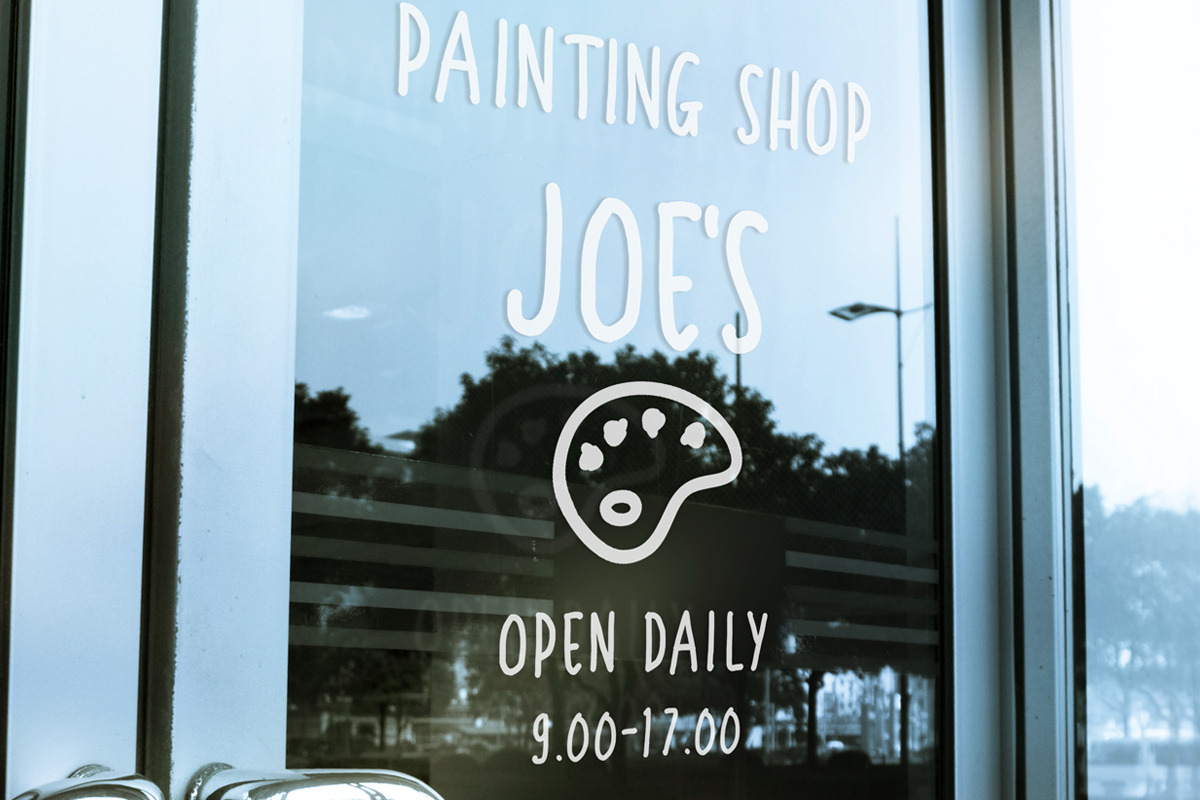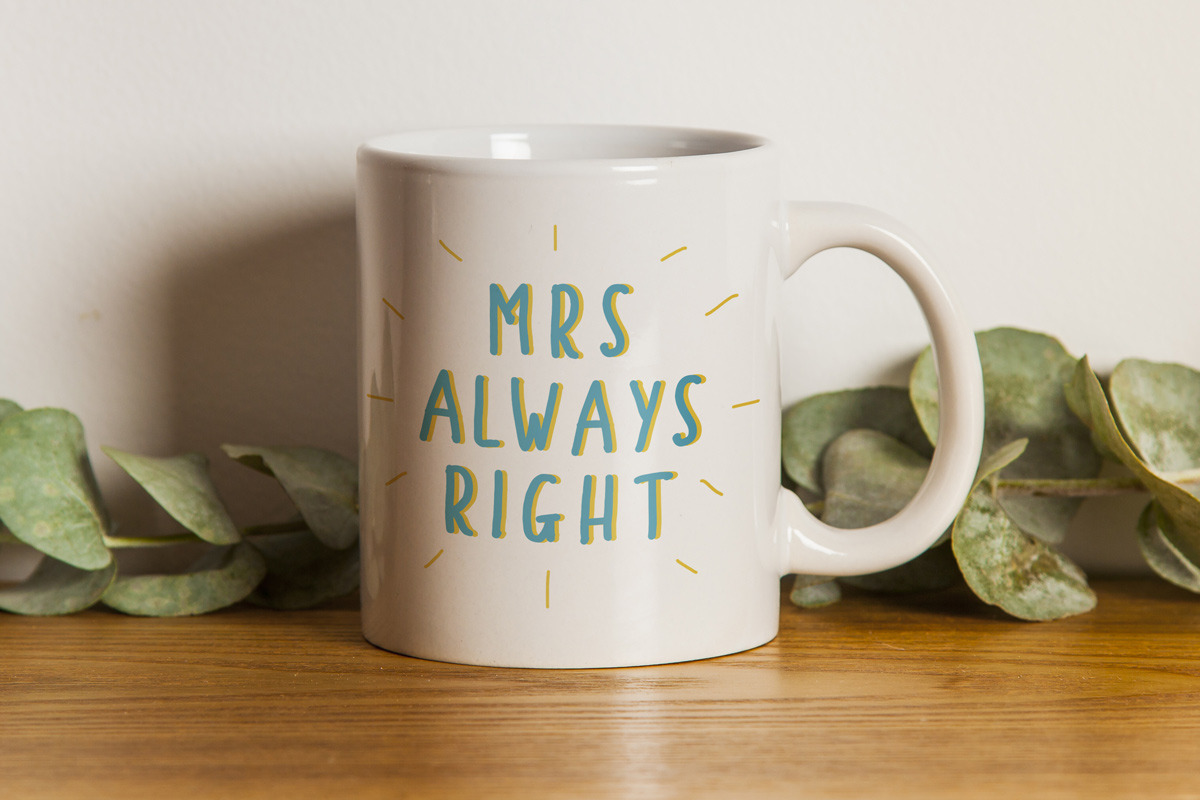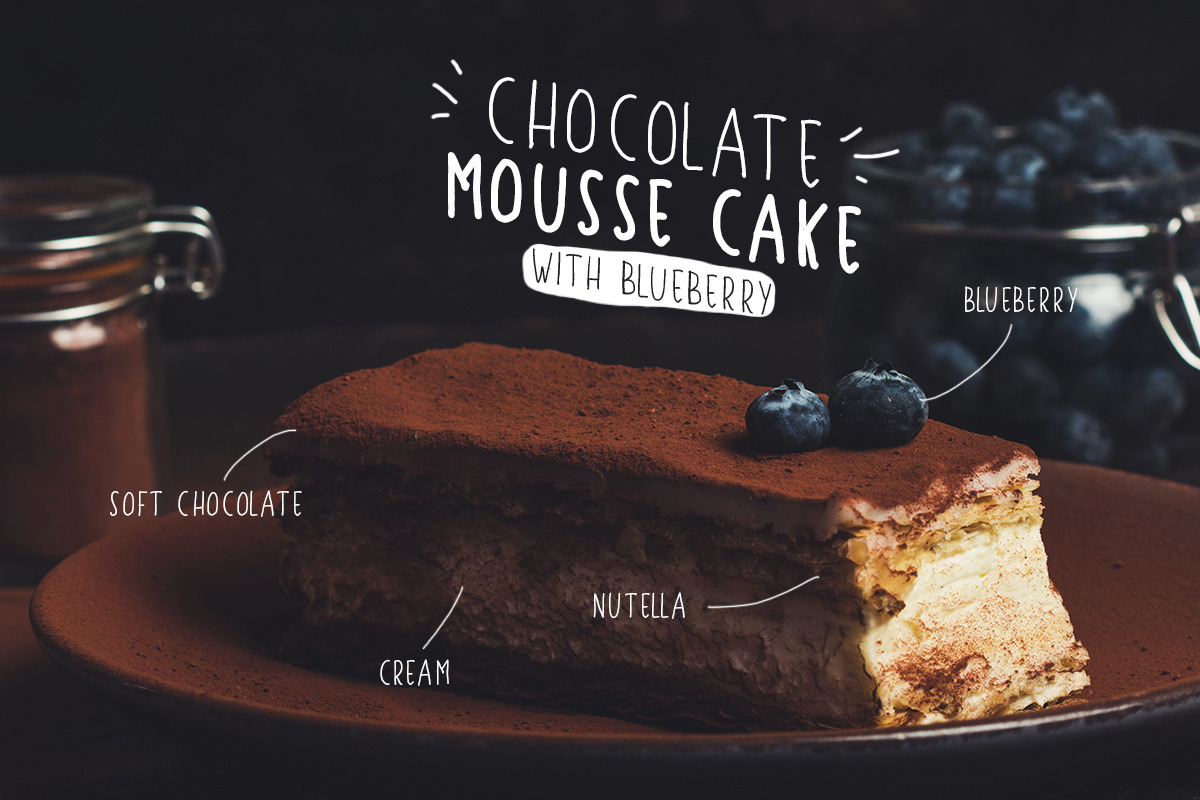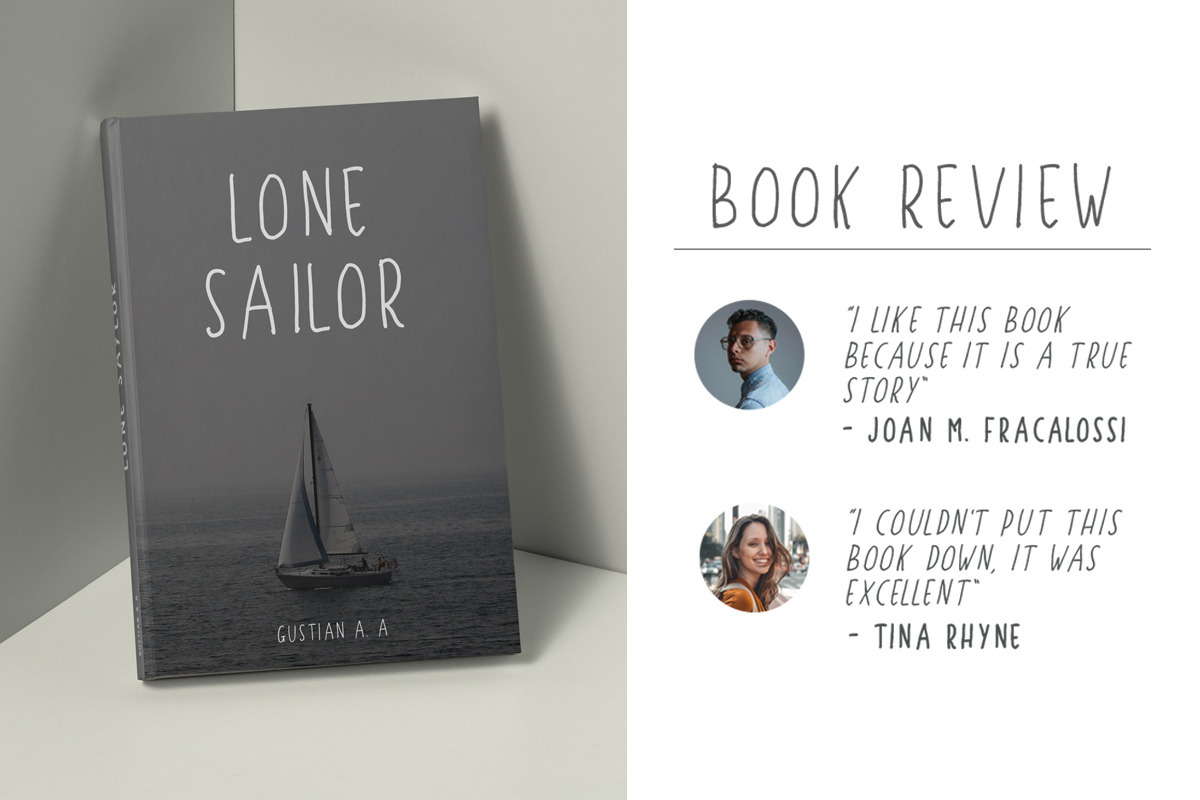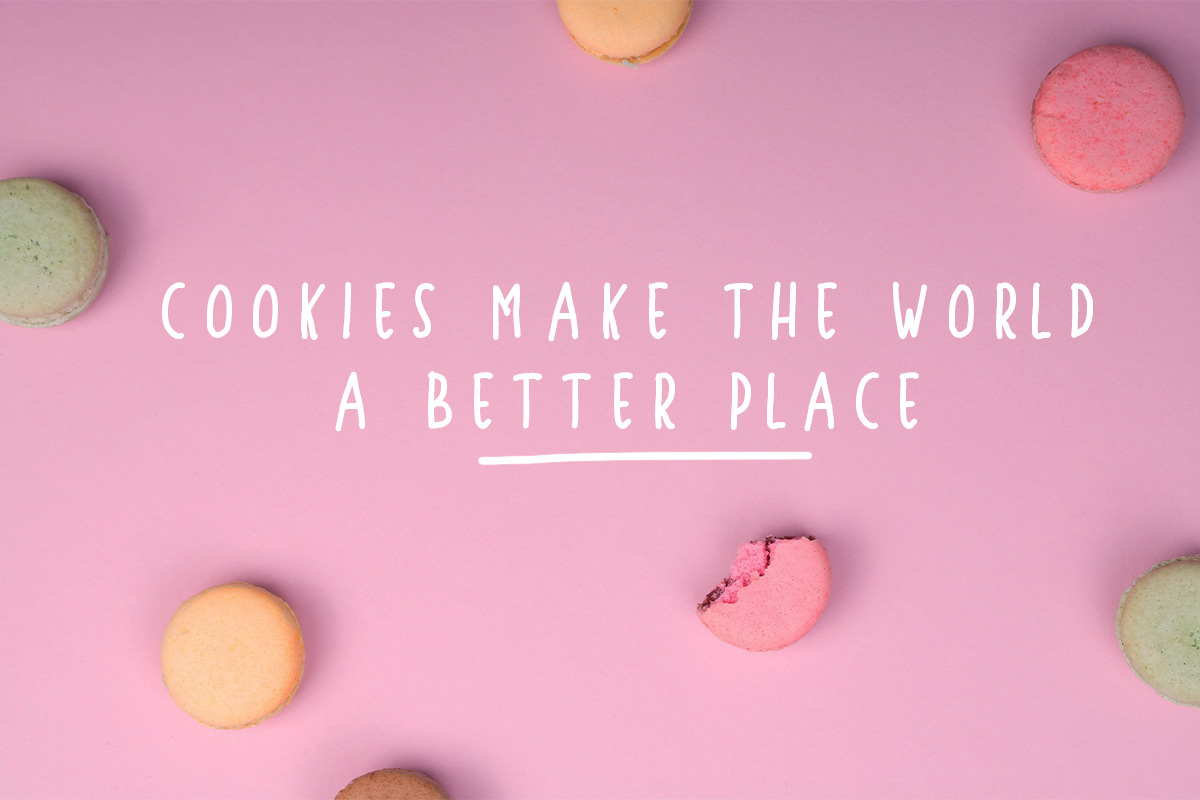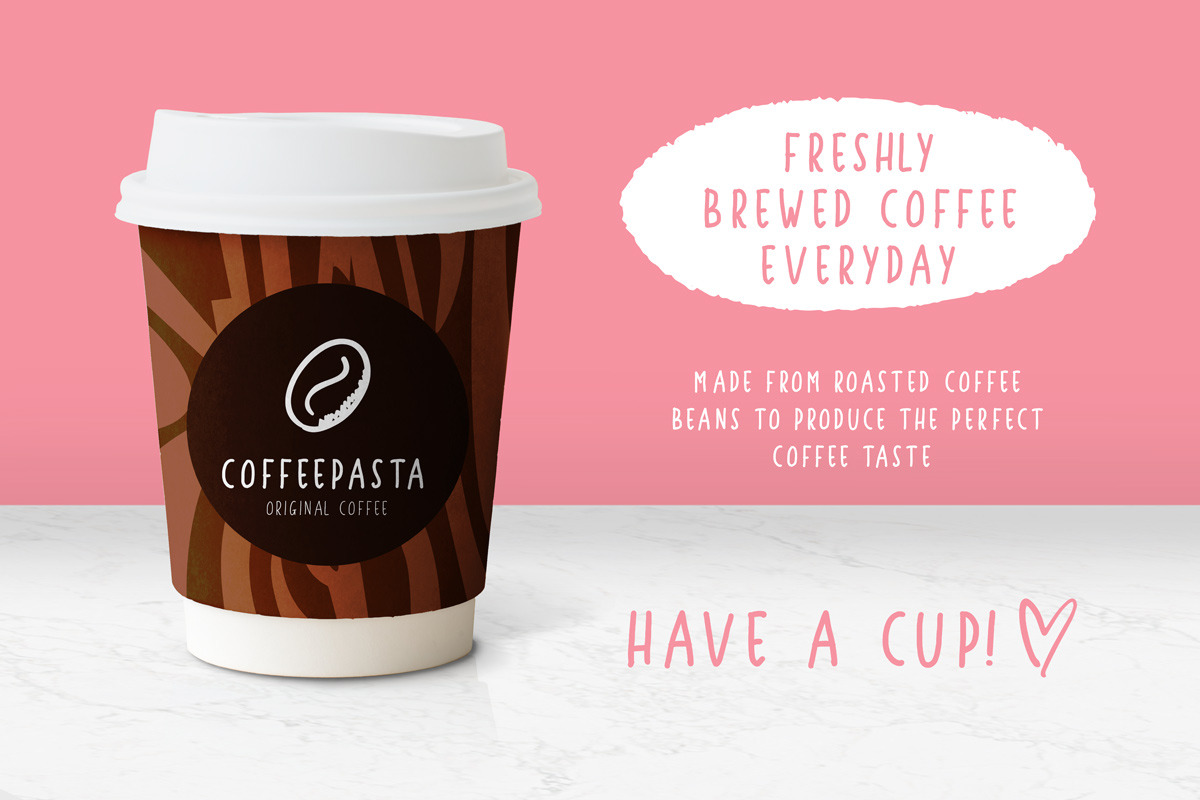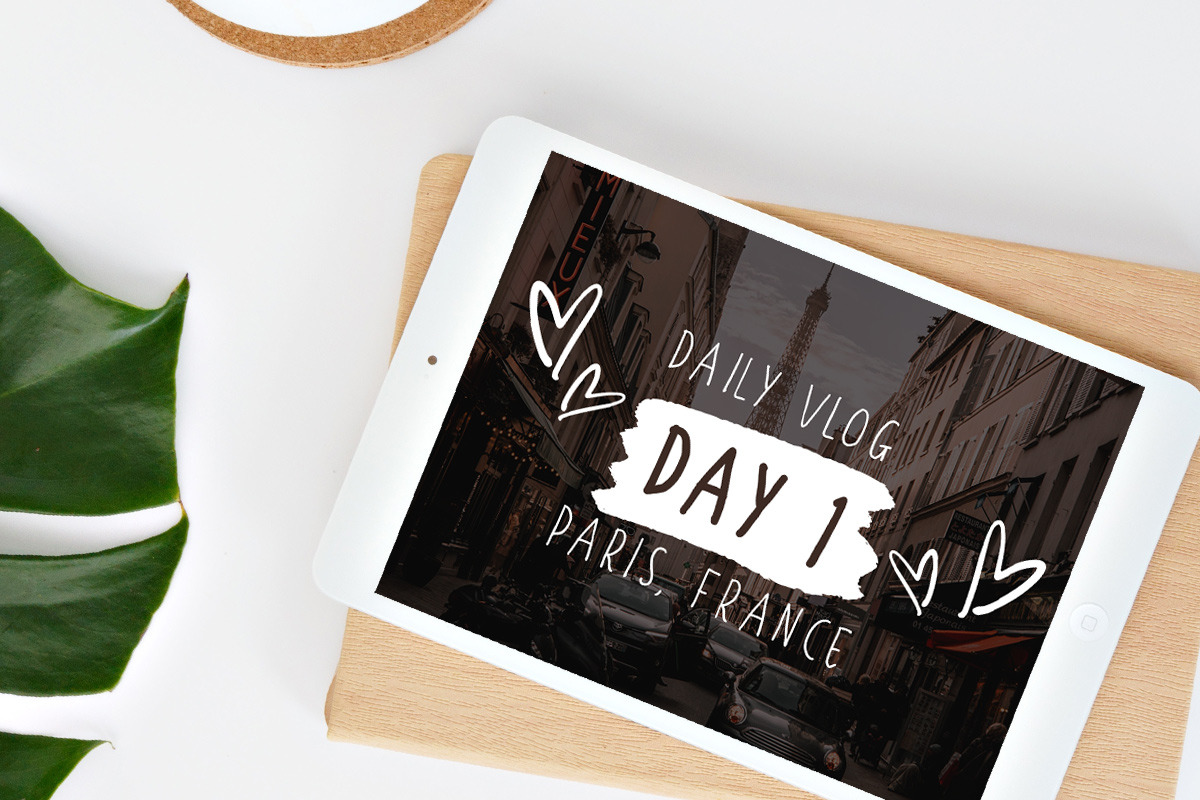
Gustisans - Font Family
Introducing Gustisans!
Gustisans is a font family that contain three style. Including Regular, Italic, and Bold. You can use this font for any needs. This font also suitable for quotes for your card. This cute caps font contain uppercase/ lowercase, number and symbol, punctuation, and comes with multilingual support.
Gustisans - Font Family by Littlehand fits naturally into Branding, posters, packaging, typography.